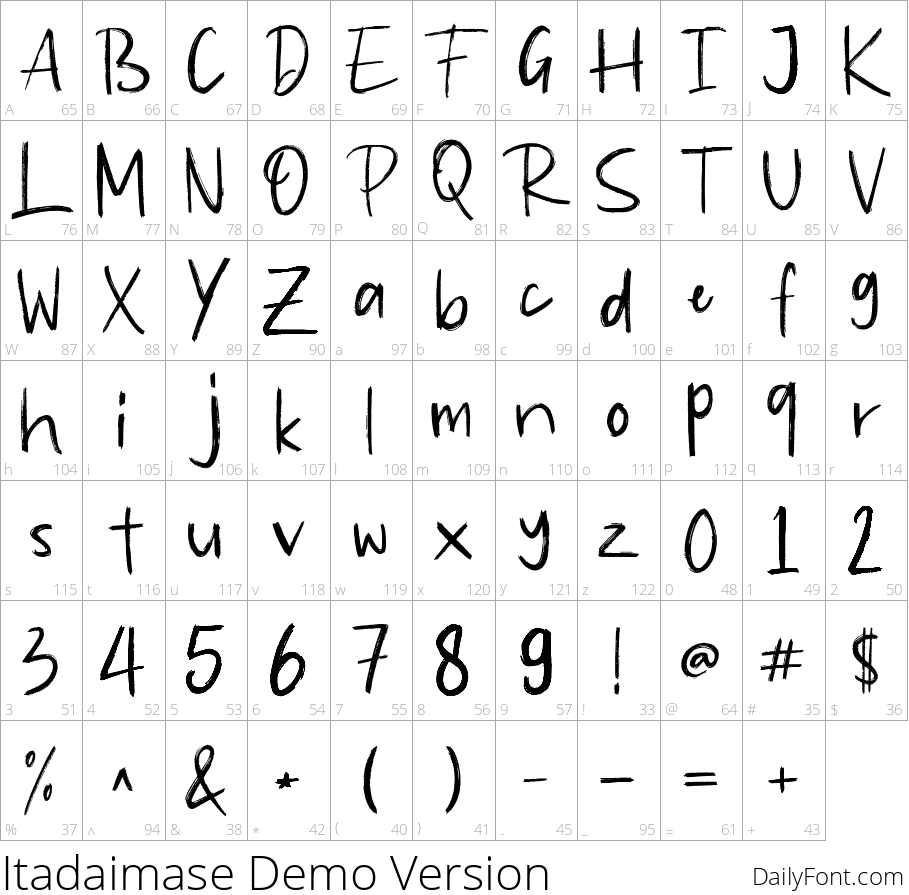
Itadaimase
Looking for a unique and expressive font with a touch of artistry? Look no further than this stunning brush duo font! This handwritten font boasts both regular and stylistic glyphs, offering endless possibilities for creative expression.
The characters are adorned with artistic brushstrokes, giving your text a distinctly human touch. The result is a font that exudes elegance, whimsy, and sophistication - perfect for adding a dash of personality to your brand's packaging, marketing materials, or social media presence.
Whether you're designing a wedding invitation, a magazine spread, or simply want to add some flair to your blog posts, this font has got you covered. Its versatility makes it an excellent choice for conveying emotions and atmosphere in your design. With its artistic flair and handwritten charm, this font is sure to make your text stand out from the crowd.